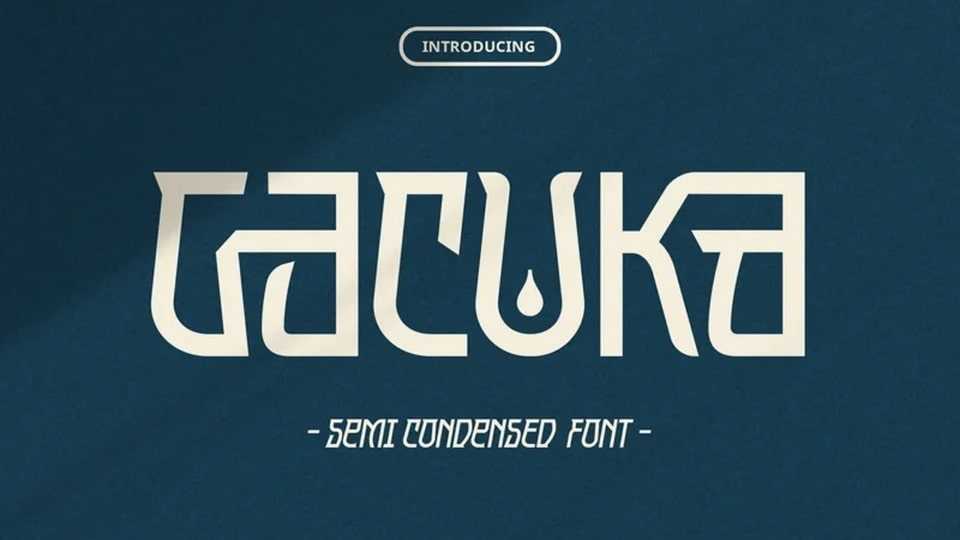
Download Gacuka font, a modern semi-condensed typeface that blends creativity with clean design, making it a standout choice for impactful headers and striking titles.